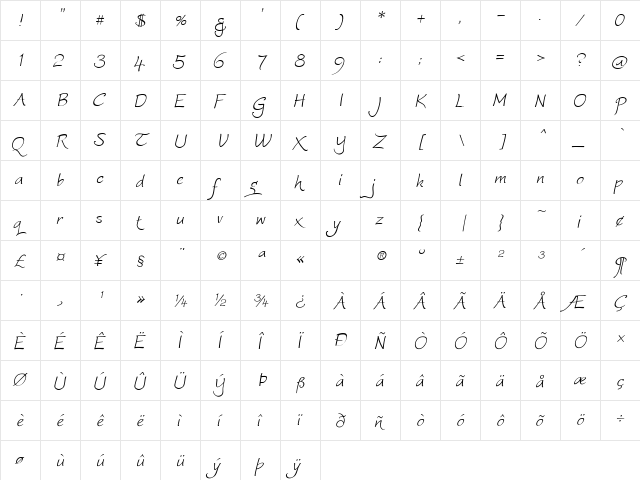
WorstveldSlingExtra2Oblique Regular Font Preview
WorstveldSlingExtra2Oblique Regular
Design Context for WorstveldSlingExtra2Oblique Typeface
WorstveldSlingExtra2Oblique takes a measured approach to typography — its balanced proportions and neutral character make it a reliable workhorse for both digital and print work. The slanted form adds forward momentum and visual energy.